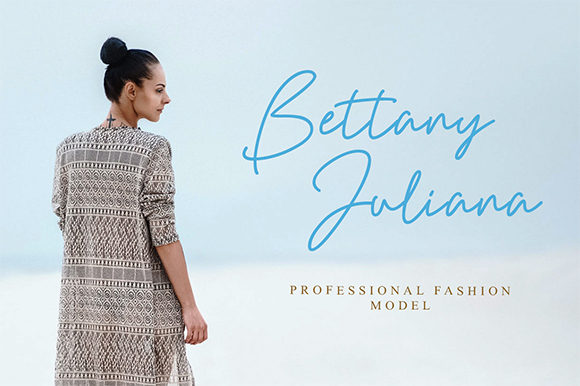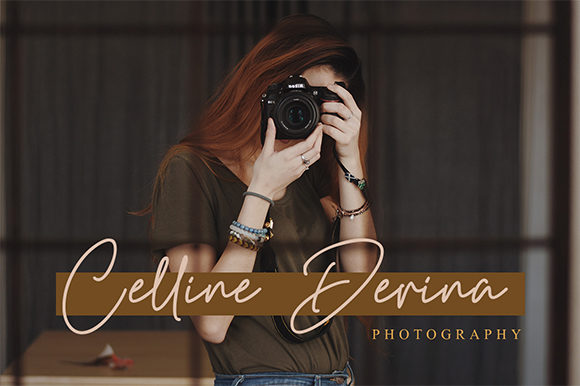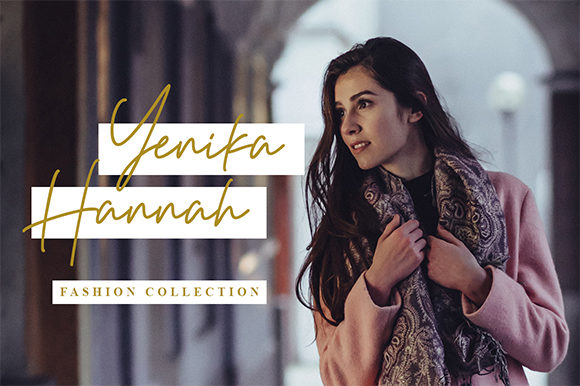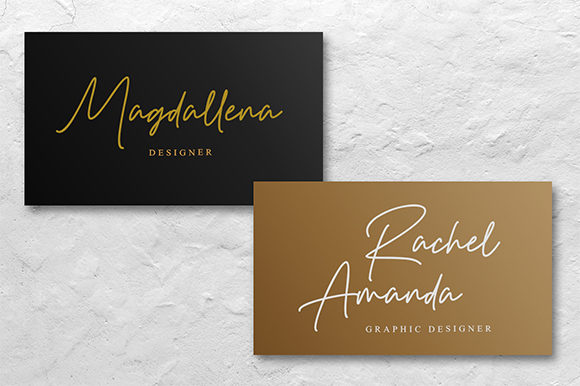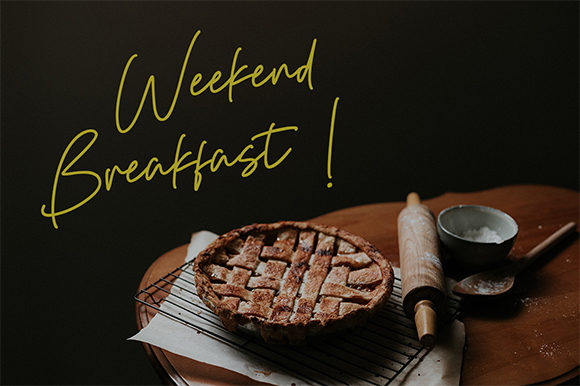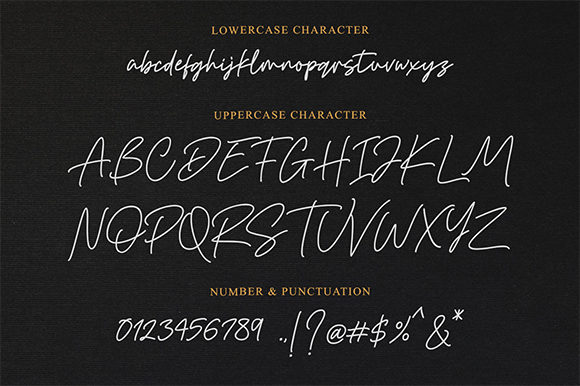
Introduction to Gisellia Signature Font
Gisellia Signature is a stunning and elegant font with a cool twist.
Get inspired by its modern simplicity and use it for wedding invitations, business cards, t-shirt designs, logos, magazines, quotes, fashion, watermarks, and so much more .
Gisellia Signature Font offers exceptional quality and versatility, making it a valuable addition to your design toolkit. Whether you’re creating for personal projects or commercial use, Gisellia Signature Font delivers professional results.